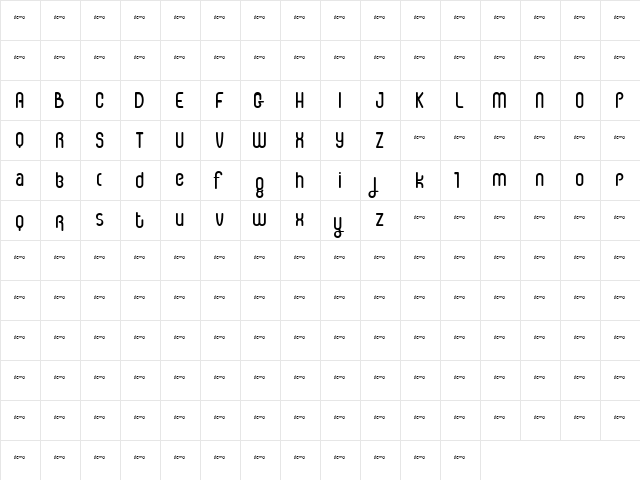
IceCream Soda Regular Font Preview
IceCream Soda Regular
Design Context for IceCream Soda Typeface
IceCream Soda offers clean, dependable letterforms without strong stylistic allegiance, making it a practical choice for designers who need flexibility.